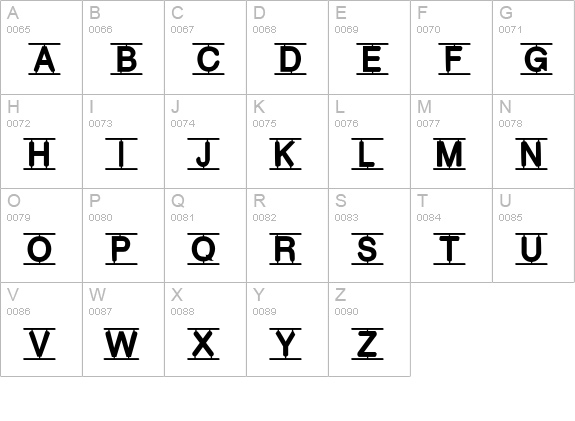
PlasticMan Font Details
Introducing PlasticMan font, a versatile and eye-catching typeface that is sure to make a statement in any design project. This unique font features bold lines and a modern aesthetic that will draw attention to your text. Whether you're designing a poster, logo, or website, PlasticMan font will add a touch of creativity and flair. What's even better is that PlasticMan font is completely free to download at FontsMarket.com. That's right, you can elevate your design game without breaking the bank. Don't miss out on this opportunity to enhance your projects with this stylish and dynamic font. Download PlasticMan font today and let your creativity shine!